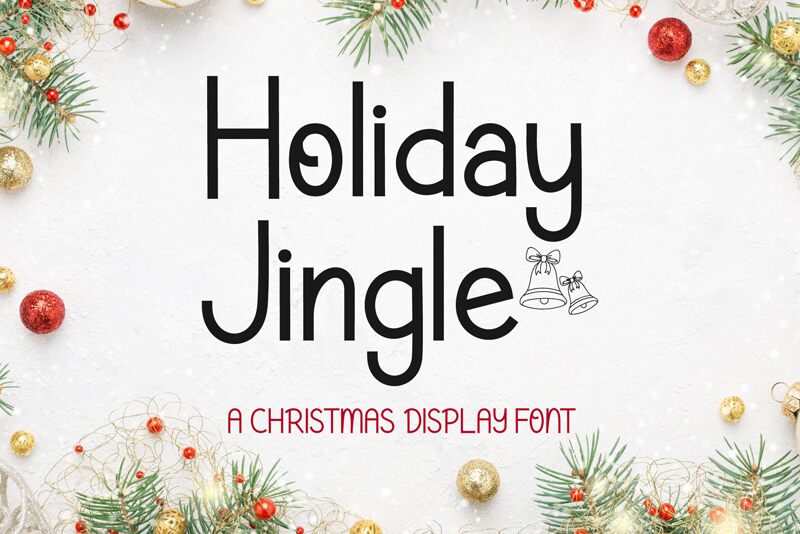
Holiday Jingle
Holiday Jingle font by AEN Creative Studio is a free holiday handwriting typeface that captures the cozy, jingling energy of Christmas. Its tall, rounded letters and gentle loops feel like they were drawn with a black marker on gift tags-casual, warm, and a little bit bouncy. The even strokes keep it clean and legible, while the playful rhythm adds just enough whimsy to feel festive without becoming cheesy.
Using Holiday Jingle, your Christmas projects immediately feel more personal and handmade. This free font works beautifully for greeting cards, gift labels, party invitations, holiday social graphics, and cozy shop signage. It’s also a natural fit for kids’ crafts and seasonal packaging where you want charm without clutter. Pair Holiday Jingle with a simple sans serif in smaller text to keep your layouts clear while letting the font’s friendly character sing in headlines.